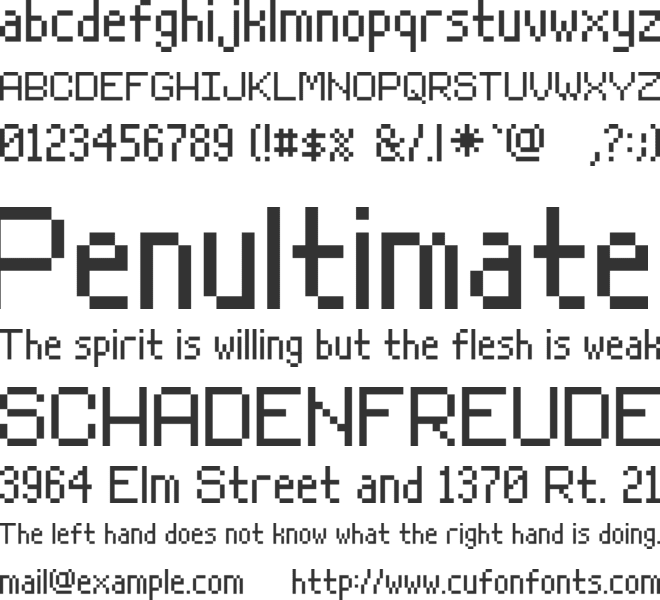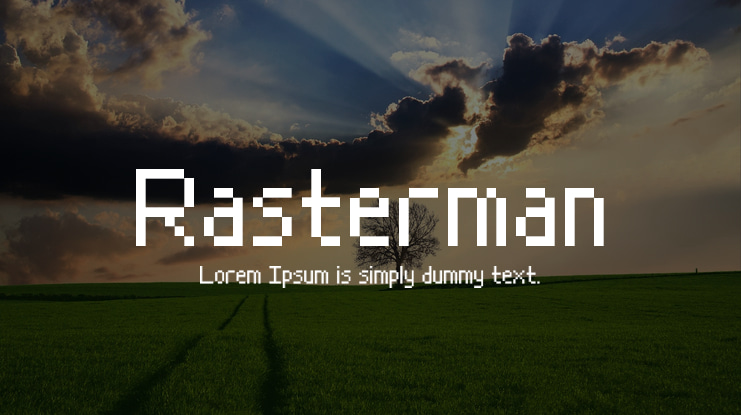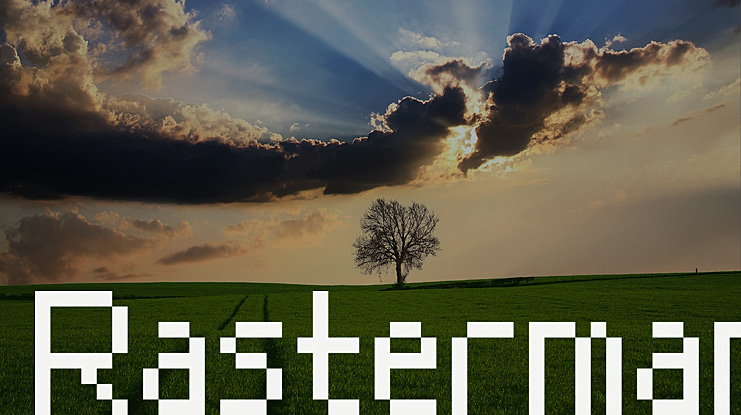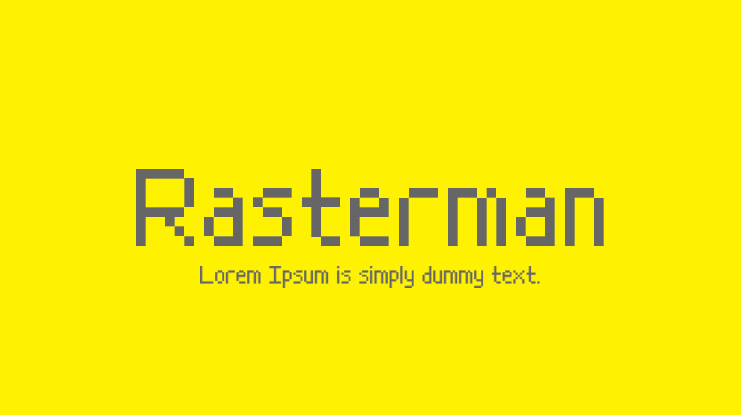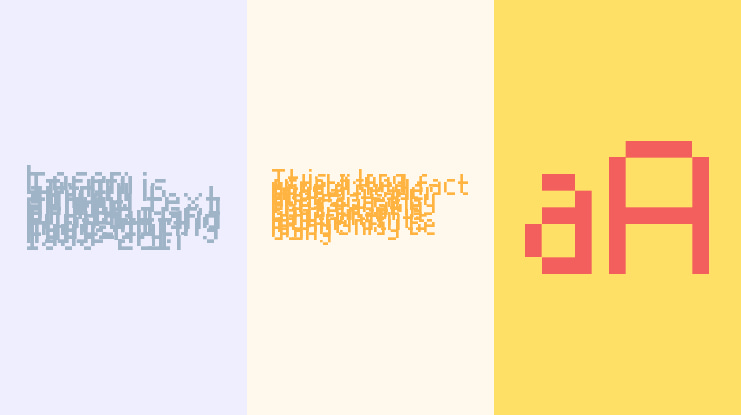
Rasterman Font
This font is named after the superhero character in my pixel-art/smiley comic, Bitmap World. It is a condensed, shortened version of the comic's main lettering font (which is not publicly available). This font has been used in many different applications and is currently being used by designers in a retro-esque video game.